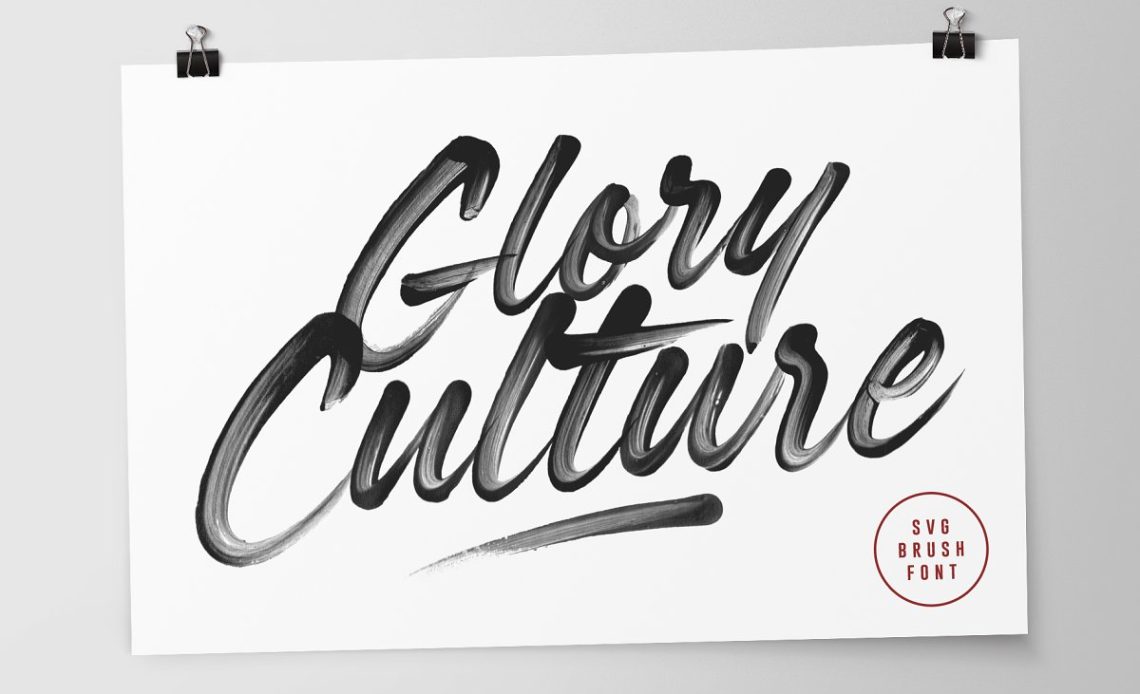
Are you looking for a fresh and modern font to elevate your social media posts, advertisements, posters, and product packaging? Look no further than the Glory Culture SVG Font + Extras by Sam Parrett! This script font is a work of art, with hand-painted brush strokes that create unmissable, authentic display text. And with its new Opentype-SVG font technology, the brush details are completely built into the font as transparency, making it easy for you to type away and let the font do its magic.
The Glory Culture SVG Font + Extras includes four different versions to give you even more flexibility and creativity. The first is the high definition OpenType-SVG brush script font, containing both upper and lowercase characters, numerals, and a large range of punctuation. The second is the Glory Culture Alt SVG, which features a completely new set of upper and lowercase characters, perfect for avoiding repetition in your designs. The third is the Glory Culture All Caps SVG, a bonus font with a new set of uppercase characters that work much better when using all-caps. And last but not least, the Glory Culture Swash SVG, a set of 18 swashes perfect for underlining your text and adding an extra custom touch.
But that's not all! The Glory Culture SVG Font + Extras also includes TTF versions of all four SVG fonts, as well as 27 built-in ligatures that help create authentic, naturally flowing hand-lettering. And if you need language support, the regular TTF version has got you covered, with support for 23 different languages.
Overall, the Glory Culture SVG Font + Extras is an incredibly versatile font family that can elevate any design project. With its hand-painted brush strokes and unique features, it's sure to capture attention and add an emotional touch to your work. So why wait? Download the Glory Culture SVG Font + Extras today and start creating stunning designs that truly stand out!